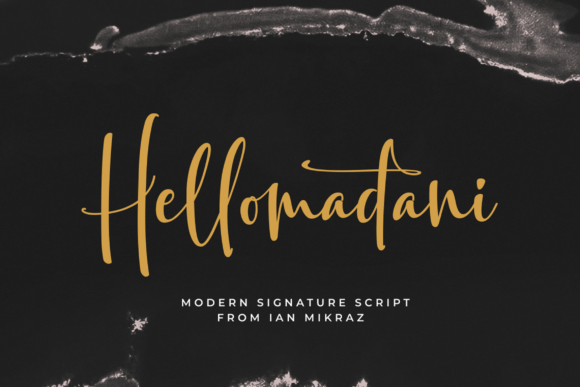
Hellomadani Font for Modern Campaign Design
I was staring at a blank canvas for a seasonal product launch, trying to find that sweet spot between professional polish and human connection. The brand needed to feel approachable yet premium, and standard Fonts just weren’t cutting it. That is when I pulled up Hellomadani, a modern signature script that promised to transcend conventional boundaries. As a marketing designer, I am always skeptical of typefaces that claim to offer "artistry," but Hellomadani - Modern Signature Script Experience the artistry of personal expression with Hellomadani, a modern signature script that transcends conventional boundaries. This unique typeface seamlessl integrates into a workflow without fighting you. In this review, I will walk you through how this Script Handwritten style performs in real-world digital campaigns, from Instagram stories to YouTube thumbnails.
Using Hellomadani for High-Impact Social Media Graphics
When you are designing for fast-scrolling feeds like Instagram or Pinterest, your typography has less than two seconds to make an impression. Hellomadani excels here because it balances legibility with flair. I recently used it for a series of quote graphics and product teasers, and the difference was immediate. Unlike stiff Fonts that feel corporate and cold, this Script Handwritten typeface adds a layer of authenticity. The strokes feel natural, as if written by hand, which helps build trust with audiences who are tired of overly polished, generic ads. However, you must be strategic. Because Hellomadani - Modern Signature Script Experience the artistry of personal expression with Hellomadani, a modern signature script that transcends conventional boundaries. This unique typeface seamlessl flows with organic curves, it works best for short headlines or callouts. Do not try to use it for long paragraphs. Instead, pair it with a clean sans serif font for the body text to maintain visual hierarchy and ensure your message is clear on mobile screens.
Optimizing Hellomadani for YouTube Thumbnails and Digital Ads
YouTube thumbnails are arguably the most competitive real estate in digital marketing. You need text that pops against busy backgrounds while remaining readable at small sizes. I tested Hellomadani on a webinar banner and a course launch thumbnail. The key is contrast. When placed over a dark background with a subtle drop shadow or outline, this Script Handwritten font stands out beautifully. It draws the eye to the main hook, such as "New Launch" or "Free Guide." Many Fonts lose their character when scaled down, but Hellomadani - Modern Signature Script Experience the artistry of personal expression with Hellomadani, a modern signature script that transcends conventional boundaries. This unique typeface seamlessl retains its distinctive personality. Just remember that for digital ads, especially those running on mobile networks, simplicity is king. Use Hellomadani for the primary emotional trigger word, and keep the rest of the design minimal. This approach prevents visual clutter and ensures your call-to-action remains the focal point.
Building Brand Consistency with Hellomadani in Email and Web Headers
Consistency is the backbone of brand recognition. I integrated Hellomadani into an email promotion template for an online shop campaign. Using it for the header greeting and section dividers created a cohesive look that carried over to the website landing page. This Script Handwritten style acts as a signature element, much like a logo. It signals to the subscriber that they are receiving personalized content, not just another bulk blast. When working with Fonts in web design, loading speed and rendering matter. Since Hellomadani - Modern Signature Script Experience the artistry of personal expression with Hellomadani, a modern signature script that transcends conventional boundaries. This unique typeface seamlessl is designed for modern digital environments, it renders cleanly across browsers. For best results, use it sparingly in web headers or hero sections. Overusing script fonts can overwhelm the user interface. By limiting Hellomadani to key decorative titles and pairing it with neutral typography for navigation and body copy, you create a balanced, professional aesthetic that enhances user experience rather than distracting from it.
Practical Font Pairing and Readability Tips for Hellomadani
No font exists in a vacuum, and Hellomadani is no exception. To get the most out of this Script Handwritten asset, you need strong partners. I recommend pairing it with a geometric sans serif for a modern, clean look, or a classic serif for a more editorial, high-end feel. The contrast between the fluid lines of Hellomadani and the structured shapes of a sans serif creates dynamic tension that keeps viewers engaged. Regarding readability, always check your designs on actual devices. What looks great on a 27-inch monitor might be illegible on a smartphone. Hellomadani - Modern Signature Script Experience the artistry of personal expression with Hellomadani, a modern signature script that transcends conventional boundaries. This unique typeface seamlessl performs well at larger sizes, but avoid using it for tiny text or dense information. It is a display font, meant for impact, not for instruction manuals. Also, consider the context. While it is versatile, it may not be suitable for formal corporate communications or legal documents where strict neutrality is required. For creative campaigns, lifestyle brands, and personal expression, however, it is an excellent choice among Fonts.